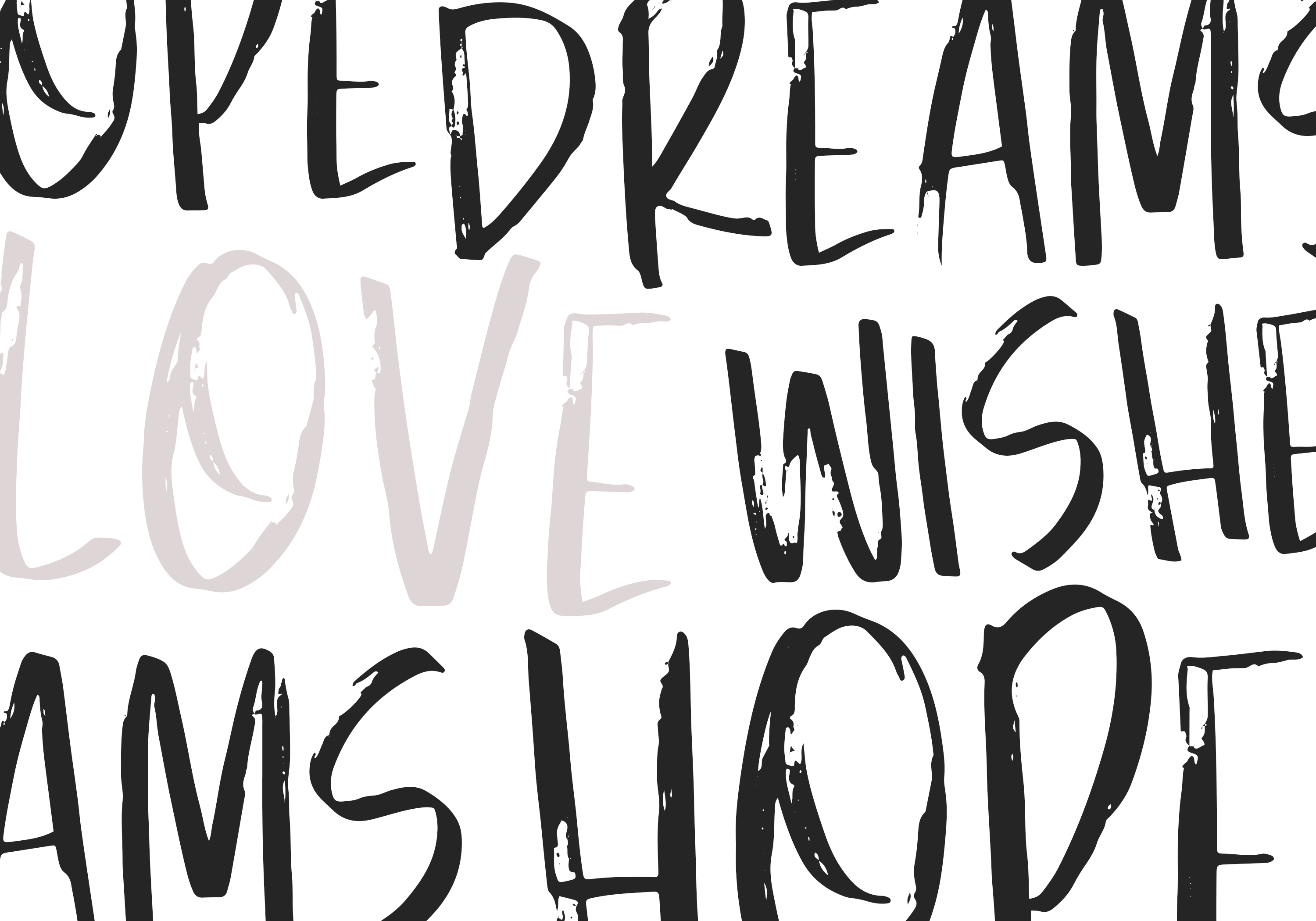
The Beauty Of Southern Fonts
The History of Southern Fonts
Southern fonts are a type of font style that originated in the Southern United States. These fonts were popular in the late 19th and early 20th centuries, when the printing industry in the South was booming. The style was characterized by strong, bold lines and ornate decorations. The most popular type of Southern font is called "Serif", which is known for its decorative serifs that give the text an elegant and old-fashioned look.
The popularity of these fonts was largely due to the fact that they were easy to read and could be used for a variety of purposes. They were used in newspapers, magazines, books, and even advertisements. They were also used to create the lettering on tombstones, as well as signs, banners, and posters.
The Appeal of Southern Fonts
The appeal of southern fonts is in their classic, old-fashioned look. They evoke a sense of nostalgia, as they remind us of a time when things were simpler and less rushed. They also have a certain charm that modern fonts lack, as they are often more ornate and decorative.
Southern fonts are also popular for their versatility. They can be used for a variety of purposes, from creating logos and branding materials to creating signs and posters. They can also be used to create a unique, personalized look for a website or blog.
The Popularity of Southern Fonts
The popularity of southern fonts has only grown in recent years. With the rise of digital design and the availability of free and easy-to-use font tools, it's now easier than ever to create stunning designs with these fonts. Many graphic designers and web developers have embraced southern fonts as an essential part of their creative toolkit.
Southern fonts are also popular among bloggers and content creators, who often use them to create a more personal and unique look for their websites and blogs. They can be used to create an eye-catching header or to add a touch of personality to a post.
Finding the Perfect Southern Font
Finding the perfect southern font can be a challenge. Fortunately, there are a variety of websites that offer a wide selection of fonts in this style, so you're sure to find one that fits your needs. You can also find a variety of tutorials and guides that can help you get the most out of your southern font experience.
Using Southern Fonts in 2023
Southern fonts are still popular in 2023, and they are an excellent choice for creating a unique and personalized look for any website or blog. Whether you're creating a logo or branding materials, or just looking for a way to add a touch of personality to your posts, southern fonts are an excellent choice. With the right font and a bit of creativity, you can create something truly unique and memorable.